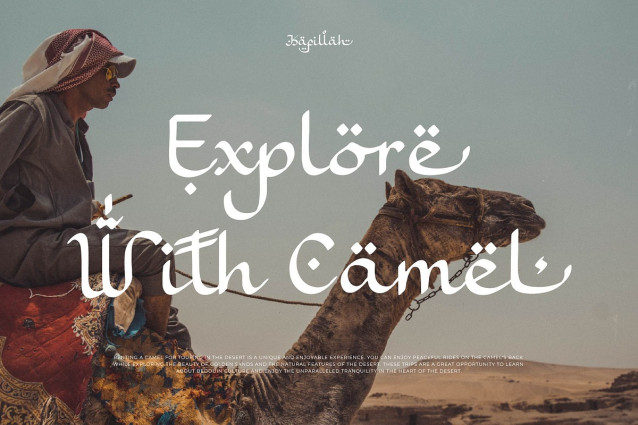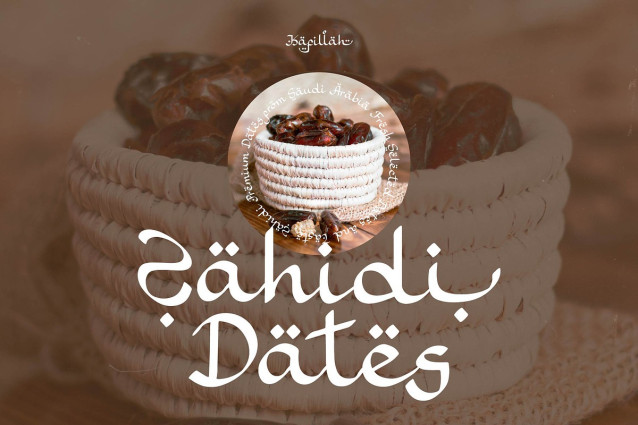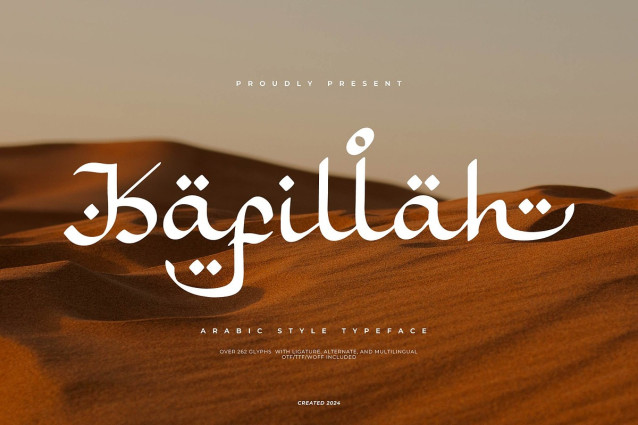
Kafillah Font
Kafillah Font | Arabic Style Typeface, from Denustudios, suitable for any projects such as: logos, branding projects, homeware designs, product packaging, mugs, quotes, posters, shopping bags, t-shirts, book covers, name card, invitation cards, greeting cards, label, photography, watermark, special events, and all your other lovely projects that need a beautiful script taste.